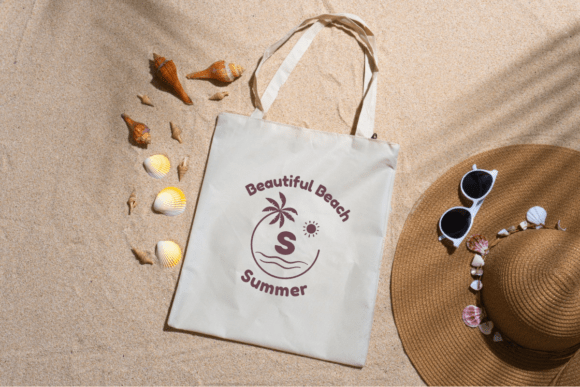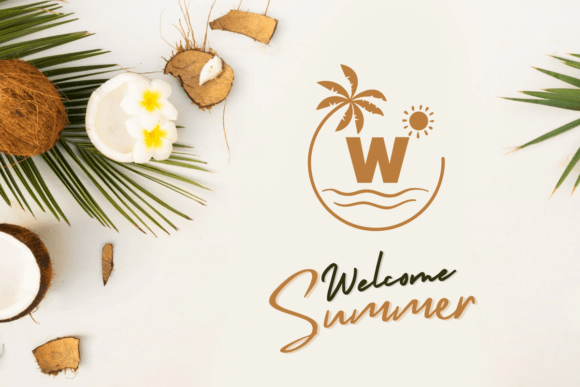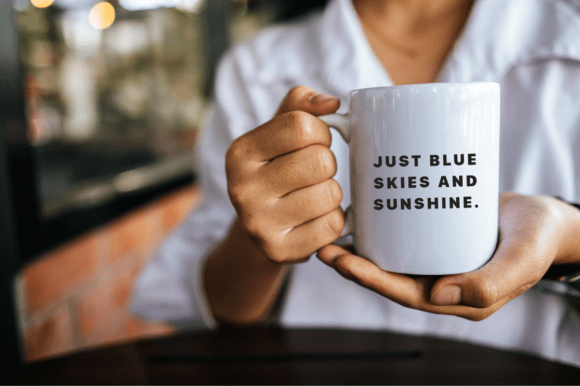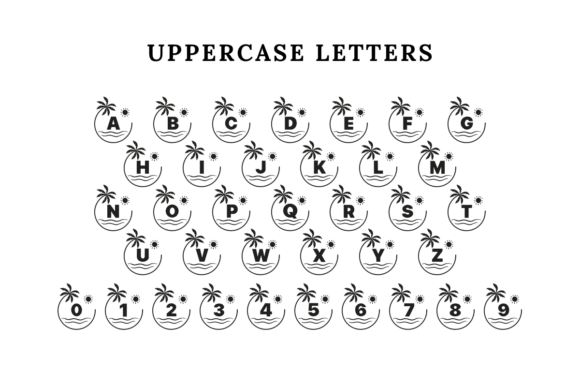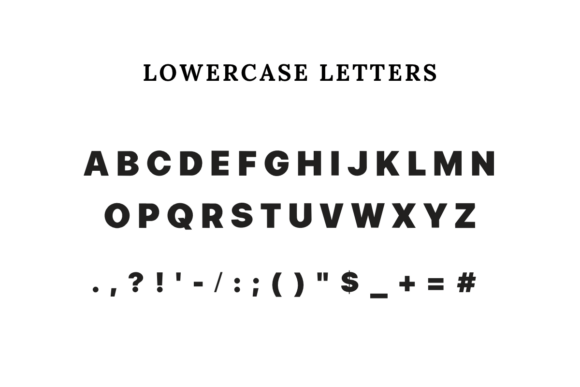
Introducing Beach Summer Font: The Ultimate Tropical Decorative Font
Are you looking for a font that captures the essence of a tropical paradise? Look no further than Beach Summer Font, a stunning decorative font that combines bold monogram initials with charming seaside elements. This font is perfect for designers and crafters who want to add a touch of summer fun to their projects.
What is Beach Summer Font?
Beach Summer Font is a tropical-themed decorative font that features bold monogram initials paired with delightful seaside elements like waves, palms, and sun icons. Each letter is enclosed in a beachy badge design, giving it a clean and stylish look that’s full of sunny vibes.
Perfect for Summer Branding and Design Projects
Beach Summer Font is ideal for a variety of design projects, including summer branding, travel merchandise, beachwear labels, vacation scrapbooking, and coastal SVG projects. Whether you’re creating a logo for a beach resort, designing a label for a summer clothing line, or crafting a scrapbook page for a vacation, this font is sure to add a touch of tropical flair.
Key Features of Beach Summer Font
- Bold Monogram Initials: Make a statement with bold, eye-catching monogram initials that are perfect for branding and design projects.
- Charming Seaside Elements: Add a touch of whimsy with charming seaside elements like waves, palms, and sun icons.
- Beachy Badge Design: Each letter is enclosed in a beachy badge design, giving it a clean and stylish look.
- Clean and Stylish: Beach Summer Font is designed to be clean and stylish, making it perfect for a variety of design projects.
- Full of Sunny Vibes: This font is sure to evoke the feeling of a tropical paradise, making it perfect for summer-themed projects.
How to Use Beach Summer Font
Beach Summer Font is easy to use and can be incorporated into a variety of design projects. Here are a few ideas to get you started:
- Summer Branding: Use Beach Summer Font to create a logo for a summer-themed business, such as a beach resort or a summer clothing line.
- Travel Merchandise: Design travel merchandise, such as t-shirts, hats, or tote bags, with Beach Summer Font for a fun and tropical look.
- Beachwear Labels: Create labels for beachwear, such as swimsuits or sunglasses, with Beach Summer Font for a stylish and eye-catching look.
- Vacation Scrapbooking: Use Beach Summer Font to add a touch of tropical flair to your vacation scrapbooking projects.
- Coastal SVG Projects: Incorporate Beach Summer Font into your coastal SVG projects, such as custom signs or wall art.
Why Choose Beach Summer Font?
Beach Summer Font is a unique and stylish font that’s perfect for designers and crafters who want to add a touch of tropical flair to their projects. Here are a few reasons why you should choose Beach Summer Font:
- Unique Design: Beach Summer Font features a unique design that combines bold monogram initials with charming seaside elements.
- High-Quality: This font is designed to be high-quality and easy to use, making it perfect for a variety of design projects.
- Versatile: Beach Summer Font is versatile and can be used in a variety of design projects, from summer branding to vacation scrapbooking.
Beach Summer Font is a stunning decorative font that’s perfect for designers and crafters who want to add a touch of tropical flair to their projects. With its bold monogram initials, charming seaside elements, and beachy badge design, this font is sure to evoke the feeling of a tropical paradise. Whether you’re creating a logo for a summer-themed business or crafting a scrapbook page for a vacation, Beach Summer Font is the perfect choice.